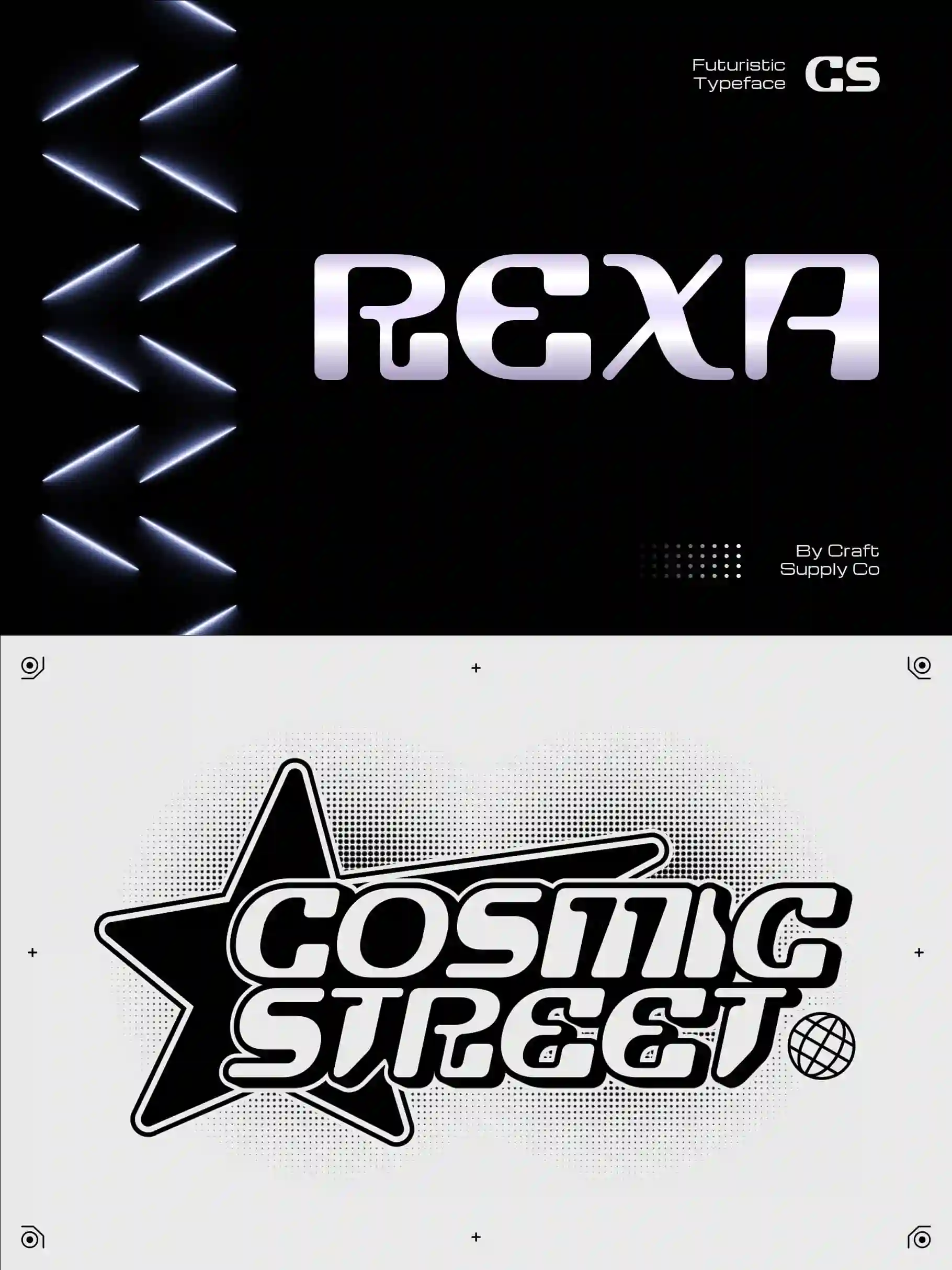
CS Rexa – Futuristic Font with Y2K Energy
Futuristic Design with Y2K Style
CS Rexa is a futuristic font that channels the bold spirit of Y2K design. Its slightly rounded lines give it a sleek and approachable feel, blending retro-futuristic charm with modern precision. The result is a typeface that feels both nostalgic and forward-looking, perfect for projects that demand innovation with personality.
Rounded Lines with a Modern Tech Feel
What sets CS Rexa apart is its subtle use of rounded details. These soften the geometric structure, creating a balance between technological sharpness and visual flow. This design choice makes the font highly versatile conveying modern clarity while still feeling expressive and stylish.